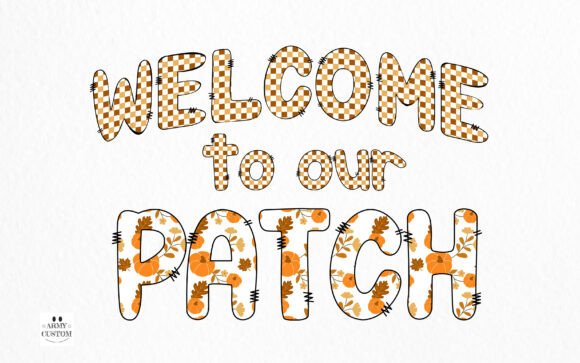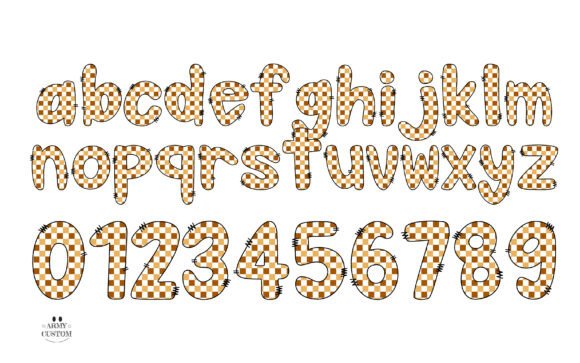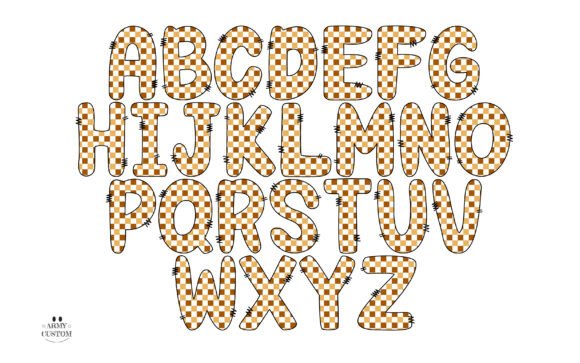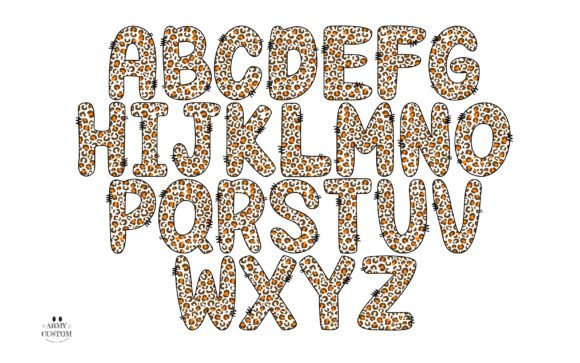
Introduction to Preppyfall Pumpkin Font
As the crisp autumn air sets in, many designers are looking for ways to infuse their creative projects with the warmth and coziness of the season. Whether it’s a seasonal quote, a greeting card, or a classroom material, the right design resource can make all the difference. That’s where the Preppyfall Pumpkin Font comes in – a delightful and playful collection of color fonts that captures the essence of autumn.
This charming font is more than just a design element – it’s a high-quality resource that can add a unique touch to any project. With its handcrafted look and rich autumn palette, it’s the perfect addition to any creative endeavor. Plus, with its transparent background and free download option, designers can easily incorporate it into their work without any hassle.
For designers looking to elevate their projects with a touch of autumnal charm, the Preppyfall Pumpkin Font is an invaluable resource. Its compatibility with select design software and bonus PNG files make it a versatile and user-friendly option. Whether you’re working on a seasonal craft or a design project, this font is sure to bring a smile to your face and a touch of warmth to your creations.
Key Features of Preppyfall Pumpkin Font
- Unique, hand-drawn design perfect for creative projects and fall-themed designs
- High-quality font with a transparent background, ideal for use on various design resources
- Unique characteristics include a distressed, vintage feel and playful, whimsical elements
- Perfect for use in invitations, greeting cards, social media graphics, and other design projects
Honest Review: Preppyfall Pumpkin Font
I recently stumbled upon the Preppyfall Pumpkin Font while working on a creative project, and I was excited to give it a try. As a designer, I appreciate high-quality design resources that can elevate my work. This font definitely fits the bill.
Here are some things that work well with the Preppyfall Pumpkin Font:
- ✨ It’s perfect for fall-themed projects, with a fun and playful vibe.
- ✨ The transparent background makes it easy to use in a variety of designs.
- ⚠️ The font may not be suitable for formal or professional projects, as it’s quite playful and casual.
- ⚠️ It’s not available in as many font weights or styles as some other popular fonts.
Overall, I’m impressed with the Preppyfall Pumpkin Font. It’s a great design resource for anyone working on a creative project that needs a fun and festive touch. Just be aware of its limitations, and use it in contexts where its playful vibe will shine.
The Preppyfall Pumpkin Font is a high-quality design resource ideal for creative projects. Its unique and playful style makes it perfect for adding a touch of autumnal charm to your designs.
To get the most out of the Preppyfall Pumpkin Font, use it in combination with other design elements, such as autumnal colors and patterns, to create a cohesive and visually appealing design.
The Preppyfall Pumpkin Font is perfect for:
- Autumn-themed designs, such as Halloween invitations and party decorations.
- Food and beverage branding, such as pumpkin spice latte marketing materials.
- Seasonal social media graphics and advertising campaigns.